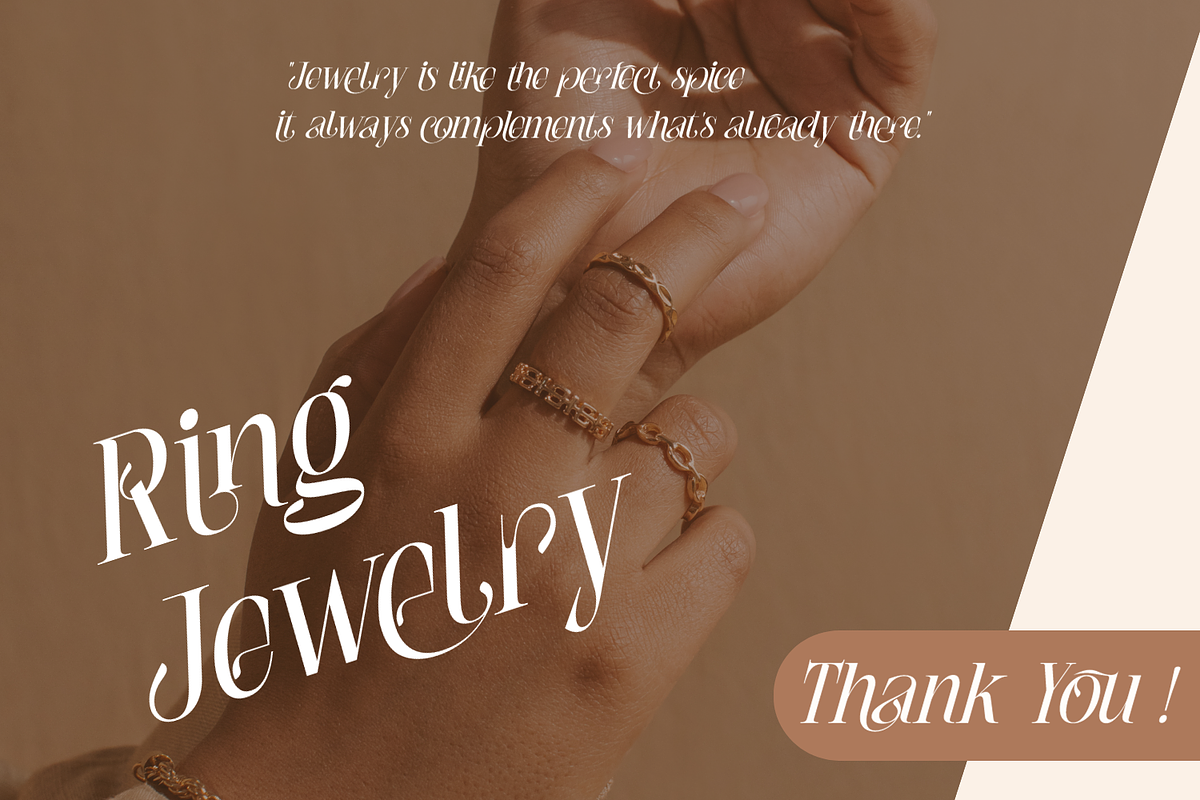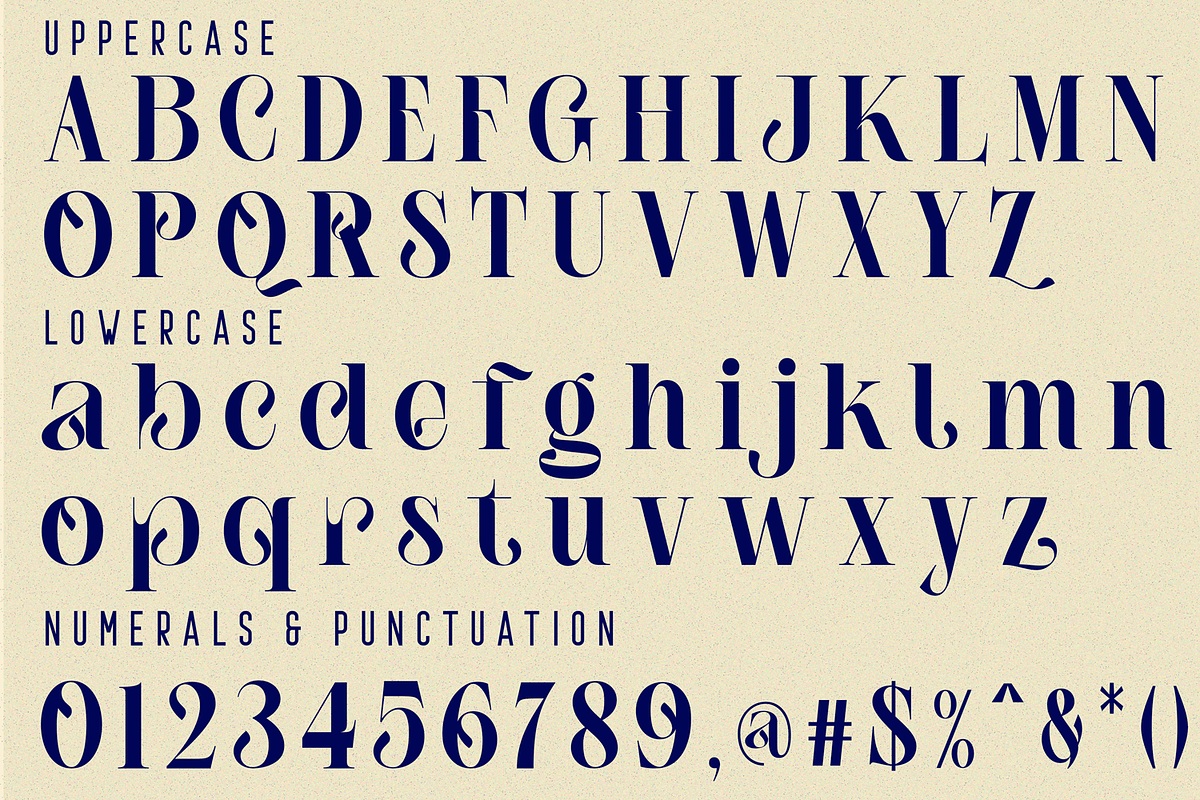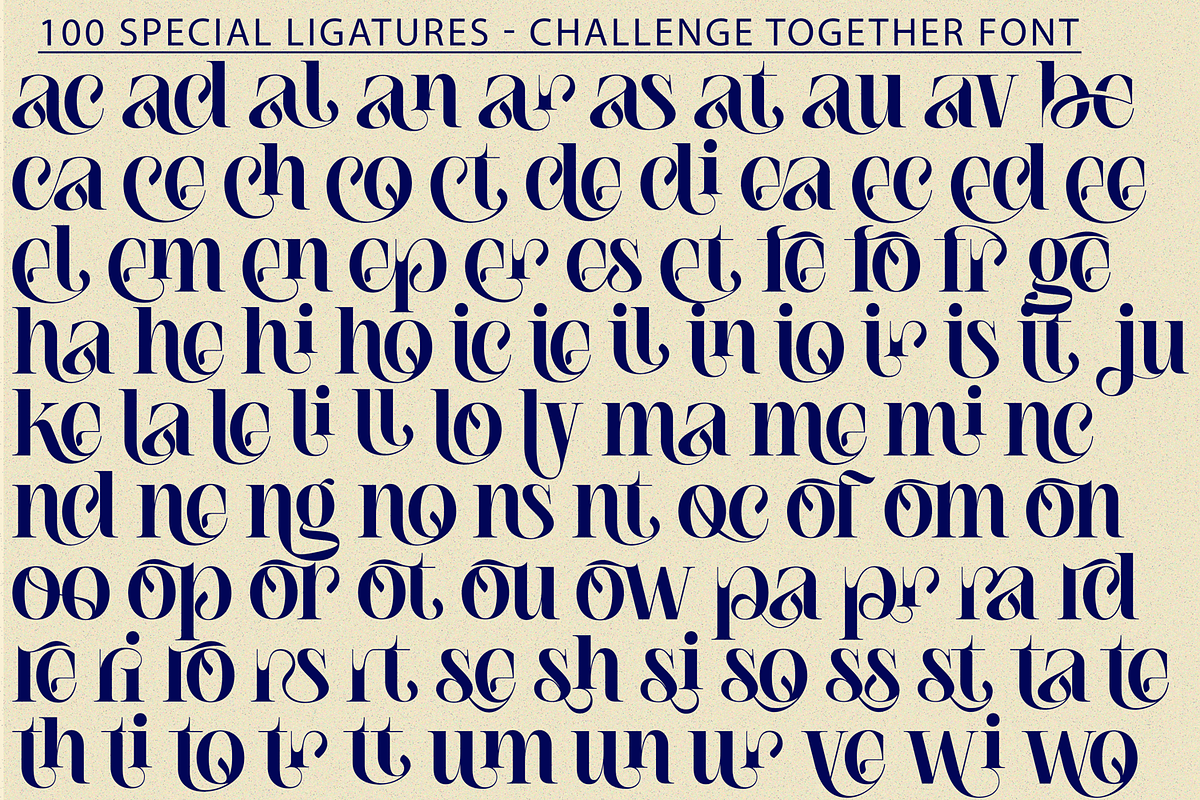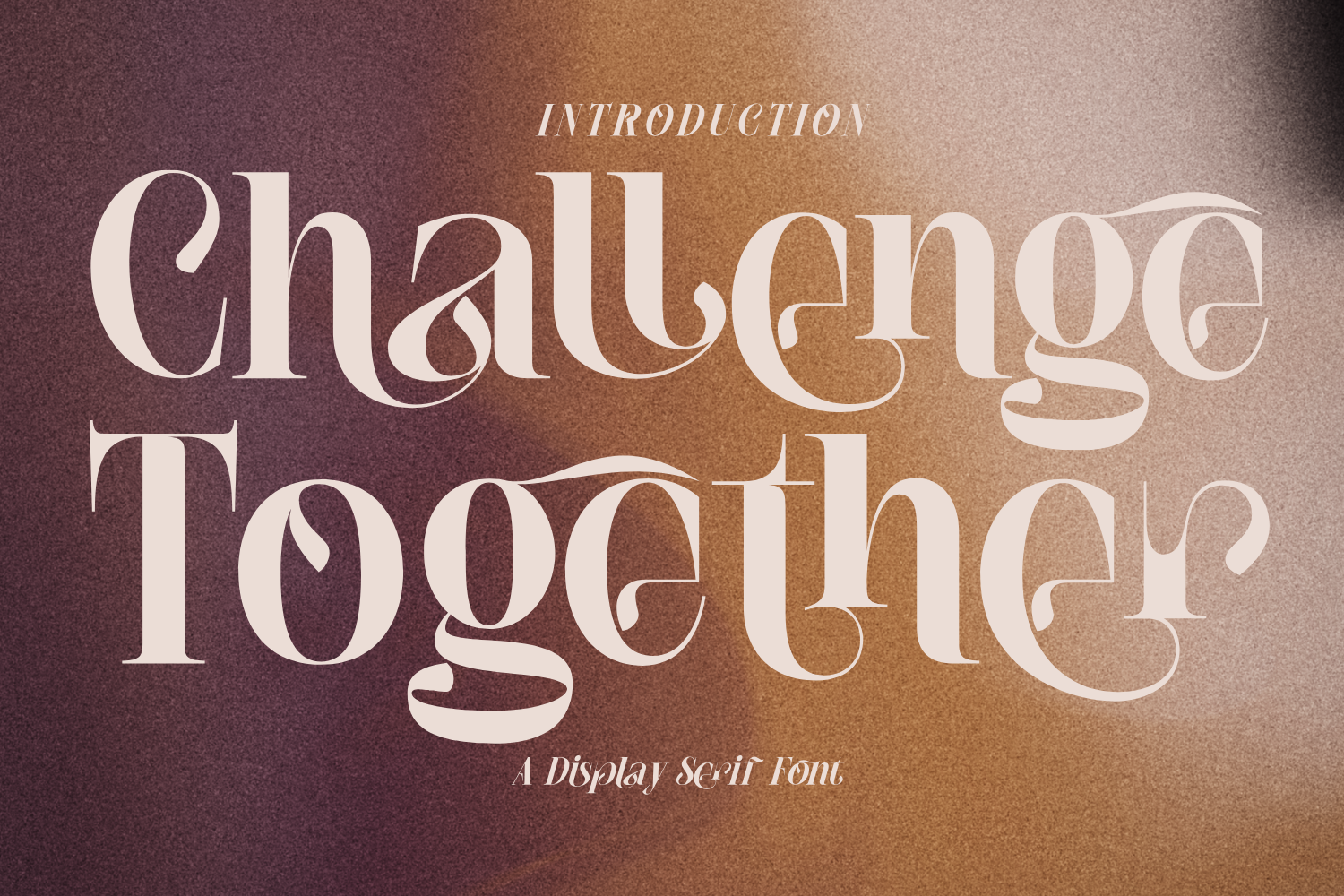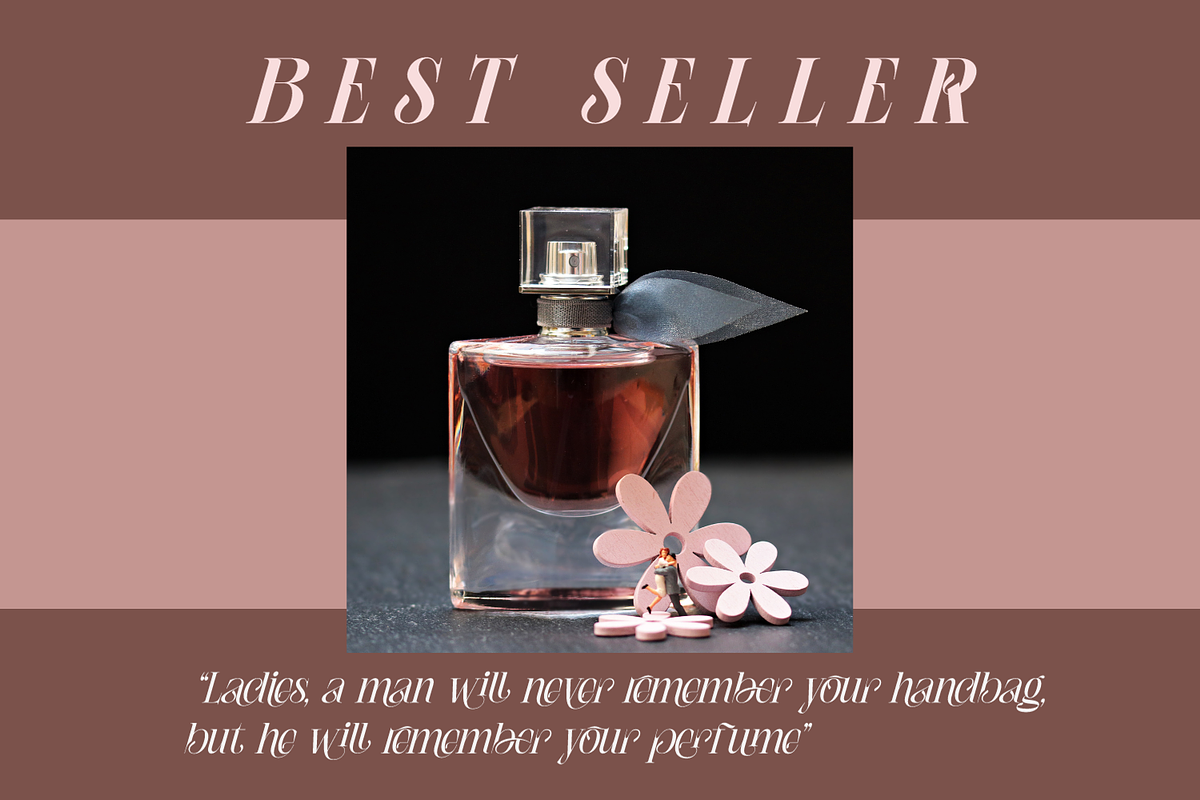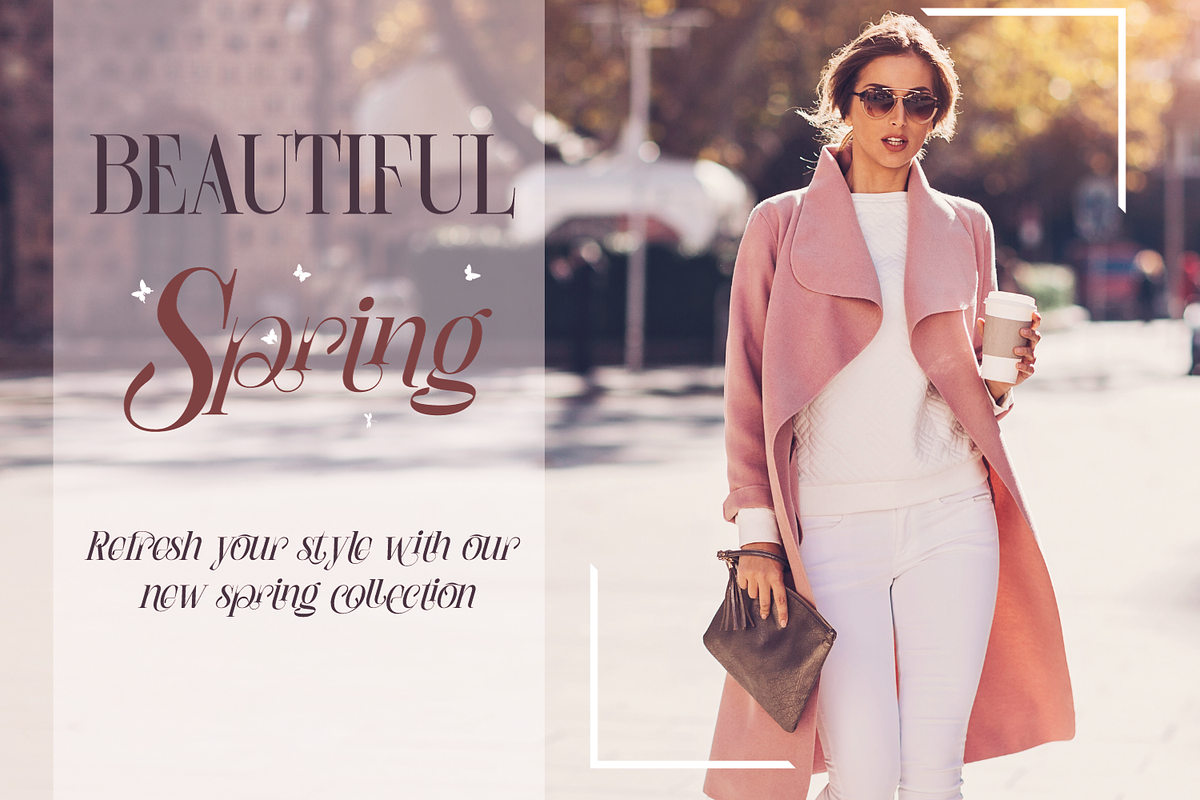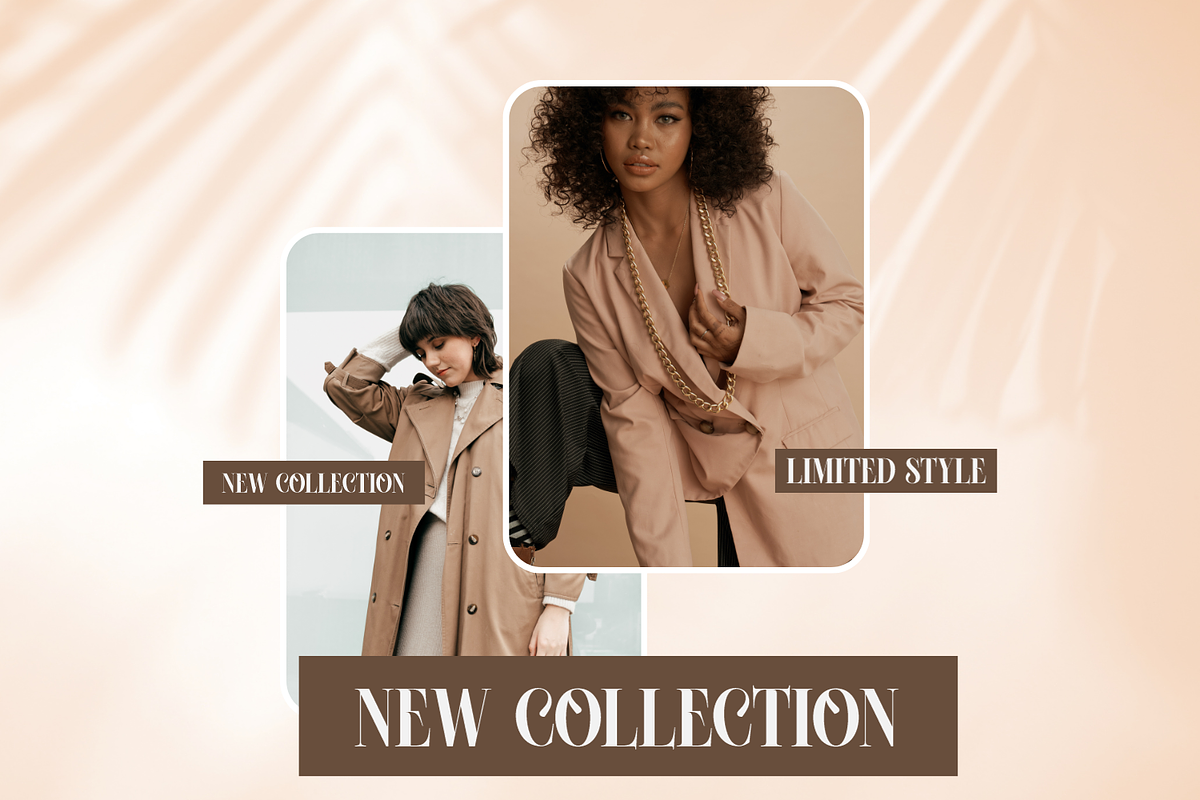
Challenge Together Font
Challenge Together Font, an unique ligatures font, a retro serif font that seamlessly combines vintage charm with contemporary flair. Meticulously crafted, its sophisticated serifs and gentle curvature exude warmth and timeless appeal. Unique ligatures and beautiful alternates this font suitable for short text and long word such as headlines, logos, UI design, magazine text, product descriptions, and other design needs.
Challenge Together was built with OpenType features and includes 100 ligatures, alternate, numbers, punctuation, and it also supports other languages.
ac ad al an ar as at au av be ca ce ch co ct de di ea ec ed ee el em en ep er es et fe fo fr ge ha he hi ho ie ic il in io ir is it ju ke la le li ll lo ly ma me mi nc nd ne ng no nt ns oc of om on oo op or ot ou ow pa pr ra rd re ri ro rs rt se sh si so ss st ta te th ti to tr tt um un ur ve wi wo
- Special Ligatures